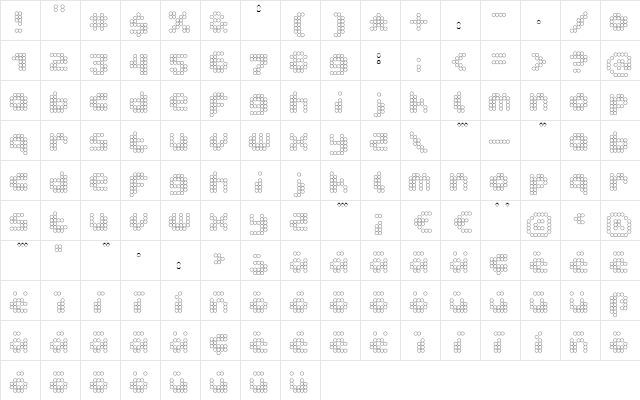
dottoacqua Regular
Design Context for dottoacqua Typeface
dottoacqua is rooted in pixel-grid construction, making it a natural fit for game UI, retro computing aesthetics, and digital nostalgia projects.
A natural choice for retro game titles, chiptune music branding, 8-bit UI, and digital nostalgia projects.
Pro Tip: Pair dottoacqua with flat colour palettes and simple geometric UI elements to reinforce its digital aesthetic.